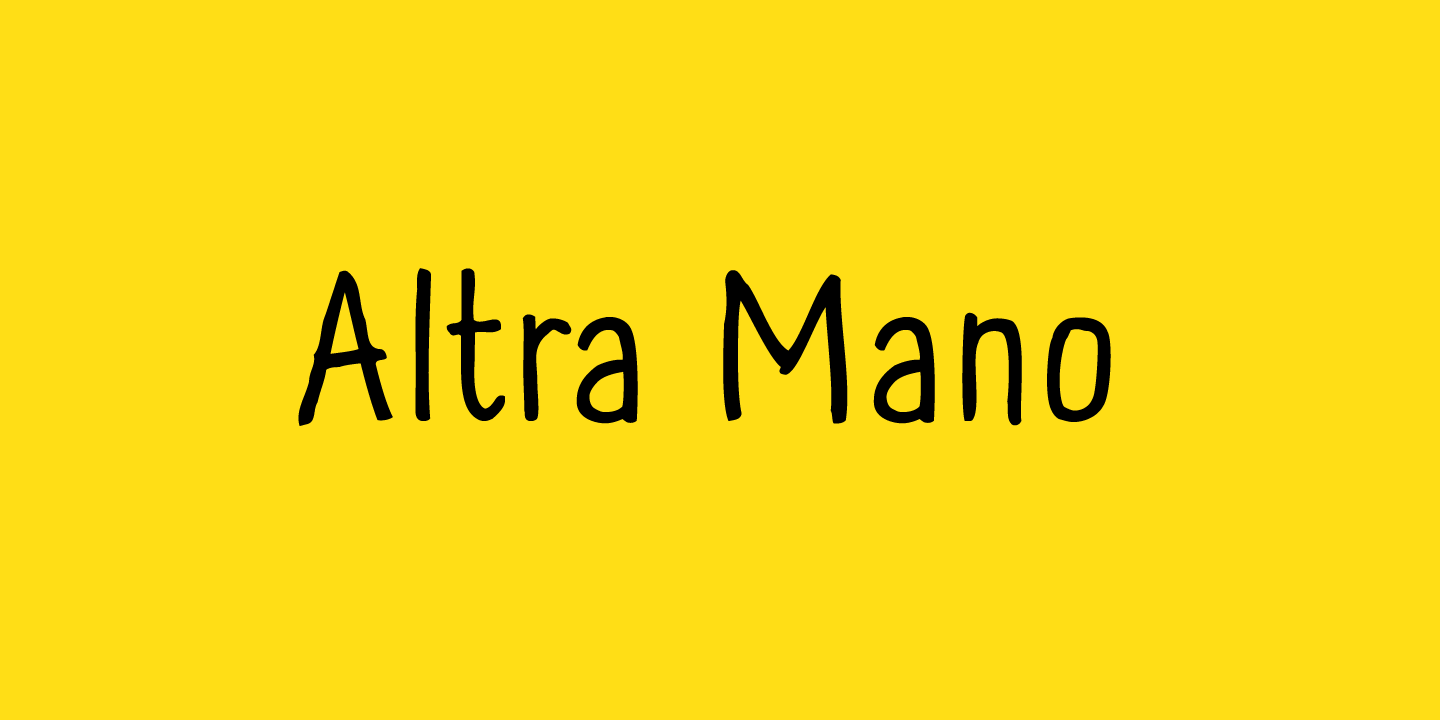
Altra Mano Font is perfect for handwritten letters, personal journals, intimate wedding invitations, artisan craft labels, authentic storytelling projects, alternative lifestyle branding, independent artist portfolios, and expressive personal communications.
What makes Altra Mano Font exciting is its genuine alternative handwriting style that captures the authentic spirit of independent expression and personal creativity. The unique letterforms and unconventional character flow create an atmosphere of artistic freedom that celebrates individuality and non-conformist communication styles.
Altra Mano Font family includes regular, bold, light, alternative, and artistic versions, plus creative ligatures, expressive swashes, and independent ornaments that enhance the authentic handwriting experience with artistic authenticity.
Express your unique voice with Altra Mano Font Free Download, the perfect choice for creators seeking authentic alternative expression and independent artistic identity. This distinctive typeface embodies the spirit of creative rebellion through letterforms that seem crafted by an artist's hand guided by pure inspiration and uncompromising vision. The expertly preserved irregularities feature authentic character variations that make every word feel like a personal artistic statement rather than mass-produced communication. Independent artists and alternative lifestyle brands consistently choose this font for projects requiring genuine connection to creative authenticity combined with contemporary artistic relevance. Its comprehensive collection of expressive elements provides unlimited possibilities for creating memorable communications that celebrate the beauty of being different and the power of authentic self-expression. Experience the liberating energy of alternative typography that transforms standard text into artistic manifestos, establishing your brand as a voice for creative independence in today's increasingly homogenized creative landscape.